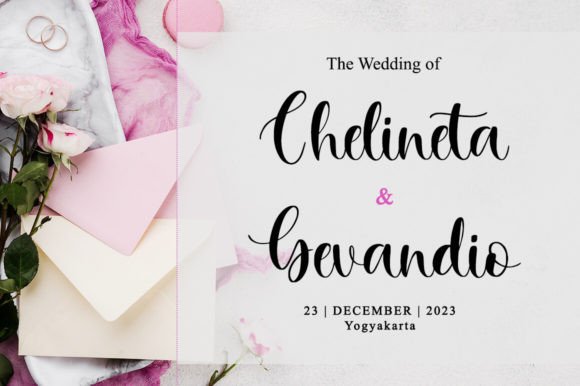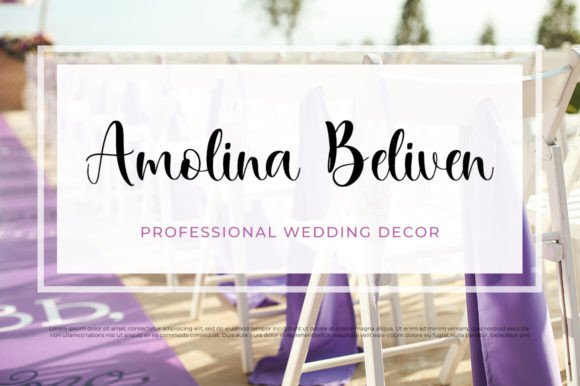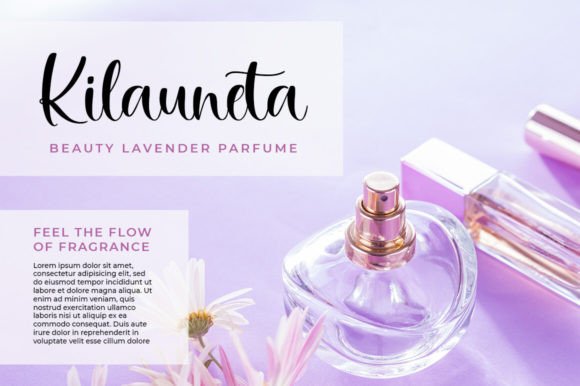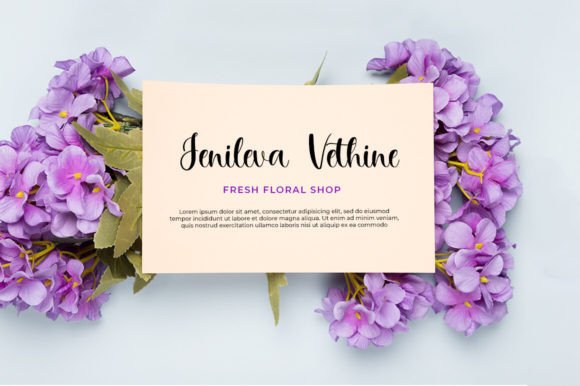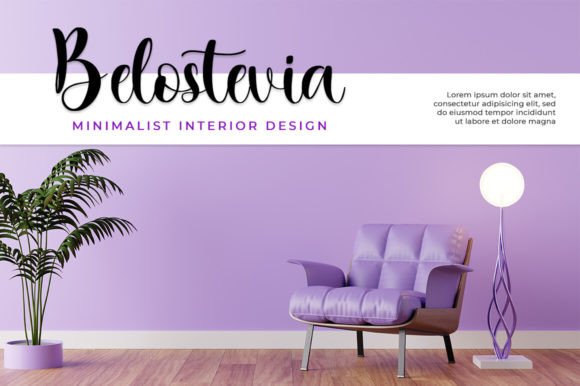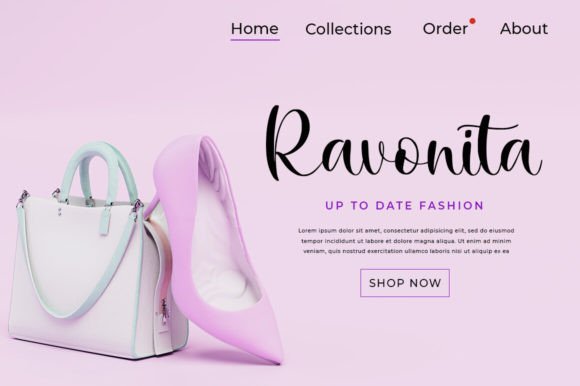
The Perfect Handwritten Touch: Unlocking the Beauty of Chalentie Font
Have you ever stared at a blank sheet of paper, searching for the perfect combination of words to convey a message, but the words just wouldn’t come? That’s where the magic of typography comes in. For designers, finding the right font can be the key to unlocking a project’s full potential.
Enter the Chalentie Script, a gorgeous typographic style that brings a touch of elegance to any project. With its perfect blend of cursive and script, Chalentie Font is perfect for logos, invitations, and branding, making it an invaluable tool for designers looking to add a handwritten touch to their work.
Whether you’re creating a wedding invitation, a social media post, or a product label, the Chalentie Font is sure to add a unique and personal touch that sets your project apart from the rest.
- Unique Characteristics: Chalentie Font features a unique blend of modern and elegant design elements, making it perfect for creative projects and branding.
- Font Style: Script and handwritten font style, ideal for headings, titles, and quotes.
Chalentie Font Review
Overall, I think Chalentie is a great font with some fantastic features. ✨ Its rounded edges and friendly curves make it perfect for body text or headlines that need a softer touch.
The font’s versatility is another strong point. ✨ It comes in a range of weights, from light to bold, which gives you a lot of flexibility when designing with it. The bold version is particularly effective for creating emphasis without feeling too harsh.
Here are some of the things that I think work well in Chalentie:
- Rounded edges and friendly curves
- Versatility in a range of weights
- Effective for body text or headlines
However, there are some limitations to consider. ⚠️ The font can feel a bit too soft or generic in some contexts, which may make it harder to stand out. Additionally, the bold version can feel a bit too condensed, which may make it harder to read in some situations.
Overall, I think Chalentie is a solid choice for designers looking for a friendly, approachable font. While it may not be the most exciting option, it’s a reliable workhorse that’s sure to get the job done.
- Use the font’s features, such as ligatures and swashes, to enhance your design.
Tips for Getting the Most Out of Chalentie Font
Chalentie Font is a versatile and elegant script font. To get the most out of it, try the following:
- Use it for invitations, event promotions, and other creative projects.
- Experiment with different font sizes, colors, and styles to create unique and eye-catching designs.
- Combine Chalentie Font with other fonts to create a harmonious and balanced design.
Chalentie Font is perfect for:
- Wedding
Alternatives to “Chalentie Font” for Designers
Lato is a modern sans-serif font that works well for body text, titles, and headings. It is highly legible and comes in multiple weights, making it suitable for a wide range of design applications. Lato is more geometric and clean compared to Chalentie Font, which is more rounded and playful.
Montserrat is a sans-serif font inspired by the urban environment of South America. It is highly legible and has a strong, geometric feel, making it perfect for titles, headings, and body text. Montserrat is more condensed and modern compared to Chalentie Font, which has a more relaxed feel.
Merriweather is a classic serif font that is highly legible and elegant. It is perfect for body text, titles, and headings, especially in print and digital applications. Merriweather is more formal and traditional compared to Chalentie Font, which is more casual and playful.
For optimal readability, we recommend using a font size between 12-14 points and a line height of 1.2-1.5 times the font size. This will ensure the text is clear and easy to read, even at smaller sizes.
Q: Is the Chalentie Font optimized for digital use?
Yes, the Chalentie Font is optimized for digital use and is designed to perform well at various resolutions and screen sizes. The font features a high level of hinting and kerning, which ensures smooth rendering and clear text even at small sizes.